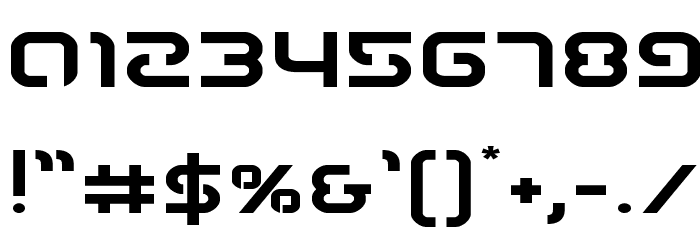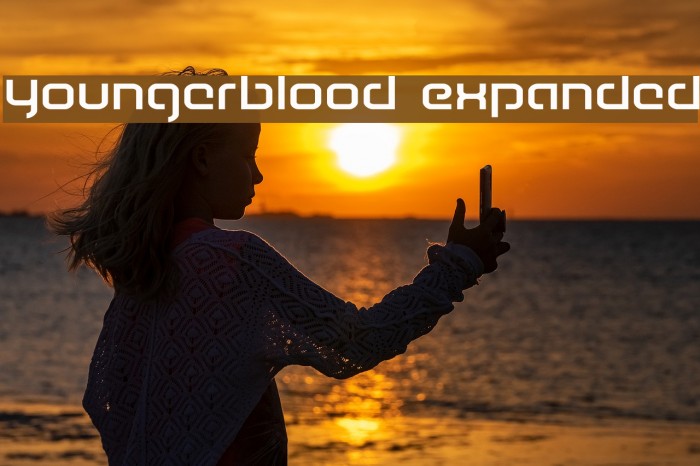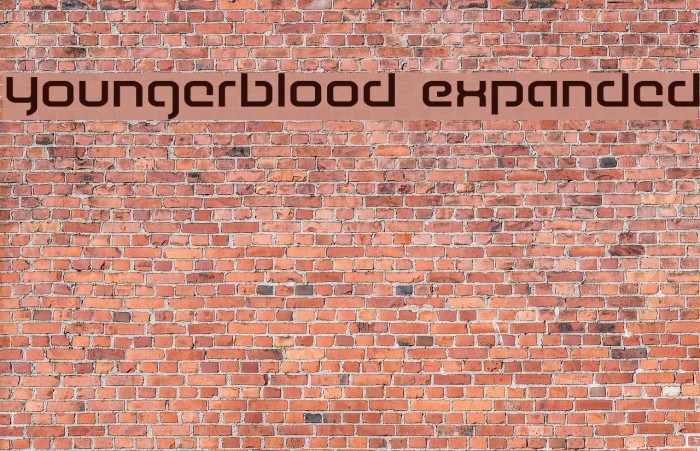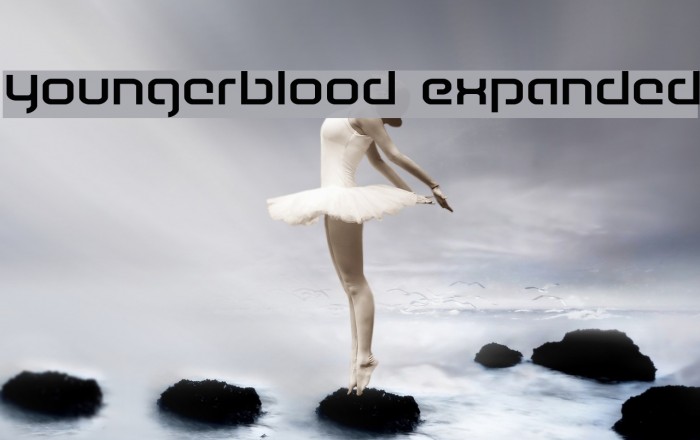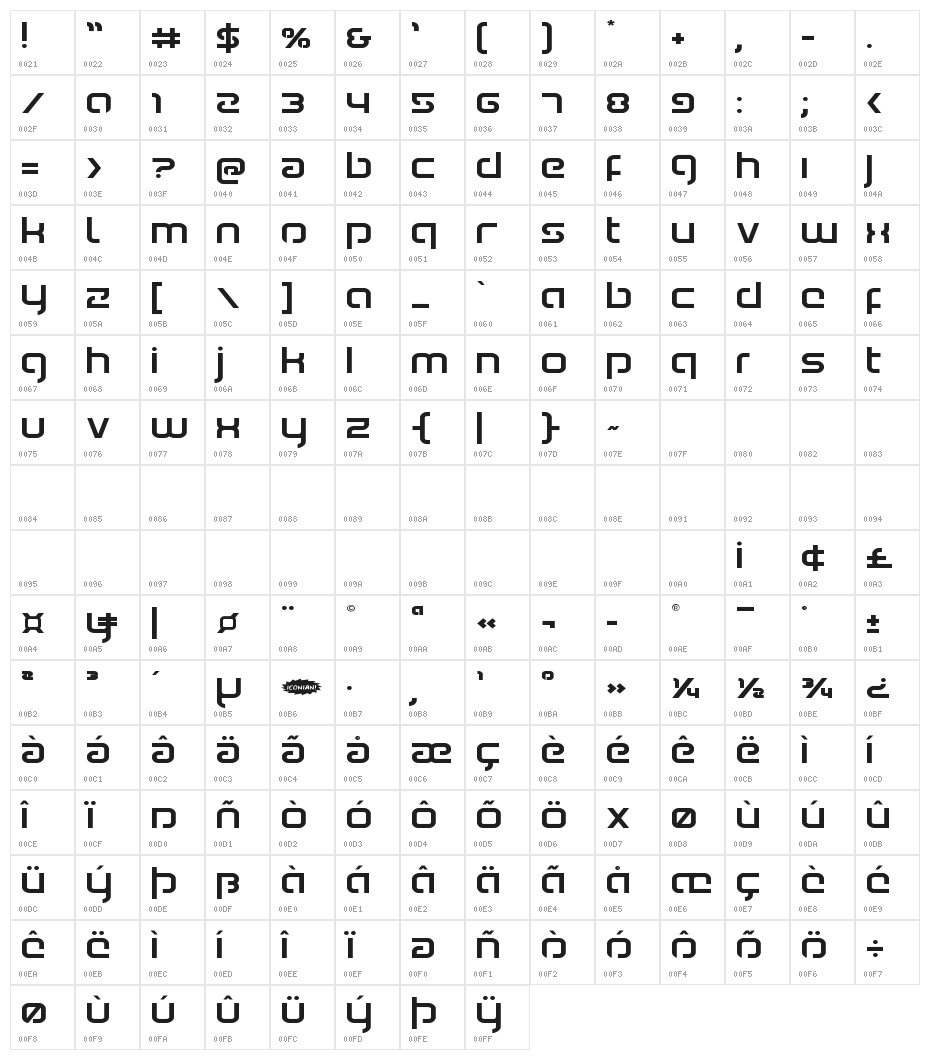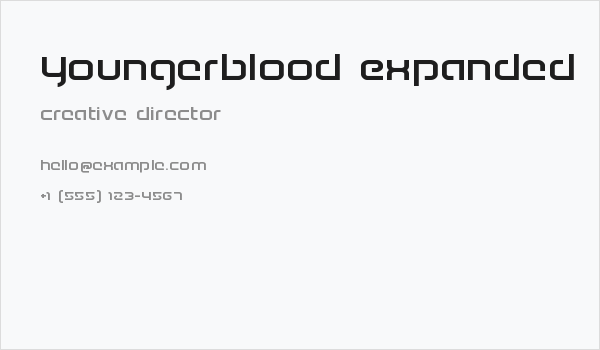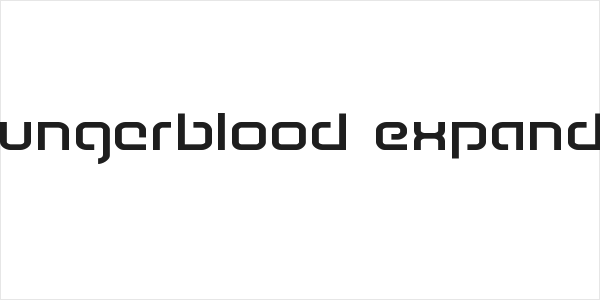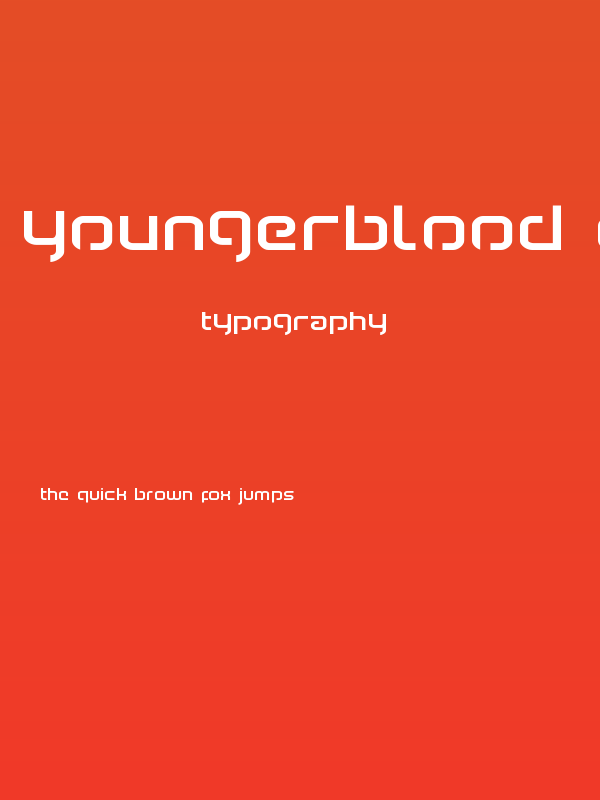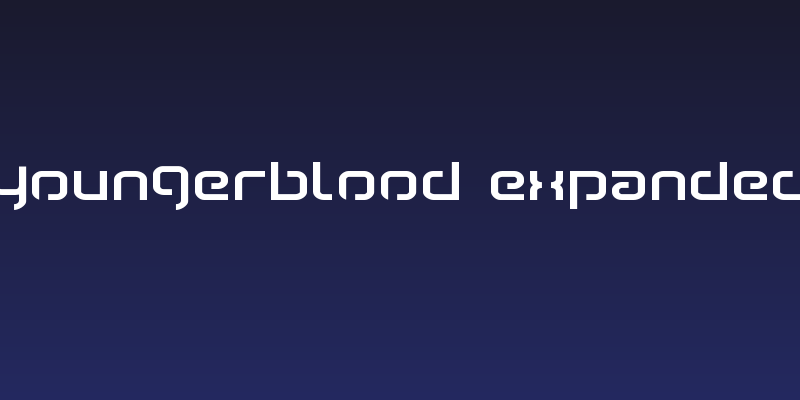
Youngerblood Expanded Font
This font features a modern and futuristic design with a geometric structure. The characters are bold and have a unique, slightly rounded appearance, giving them a distinctive and contemporary look. The font maintains a consistent weight throughout, with clean lines and a uniform stroke width. It is highly legible and stands out due to its expanded width, making it suitable for attention-grabbing headlines or display purposes. The special characters are designed to match the overall style, ensuring cohesion across all elements.
A modern, geometric font with bold, rounded characters and expanded width.
- Proposed Projects: Ideal for technology branding, futuristic posters, video game titles, and modern advertising campaigns.
- Overall Style: Futuristic, Geometric
- Use Case: Headlines, Logos, Display